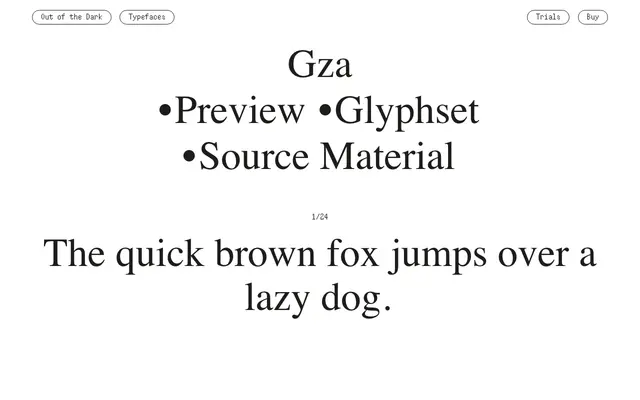
An eight-style grotesque from Out of the Dark offering weights from Regular to Bold, extended by condensed, compressed and super-display cuts.
Gza spans eight styles across three weights — Regular, Semibold and Bold — each with corresponding italics where applicable, and stretches into Condensed, Compressed and Super variants for tighter setting and large-scale work. The family's range of widths gives it flexibility across body text and headline use without requiring a separate display face. Released by the Swiss foundry Out of the Dark, it sits alongside similarly taut, economical typefaces in their catalogue.
The presence of condensed and compressed widths alongside a 'Super' display cut, combined with the minimal preview text, points to a grotesque sans-serif with a functional, utilitarian character typical of Swiss type design.